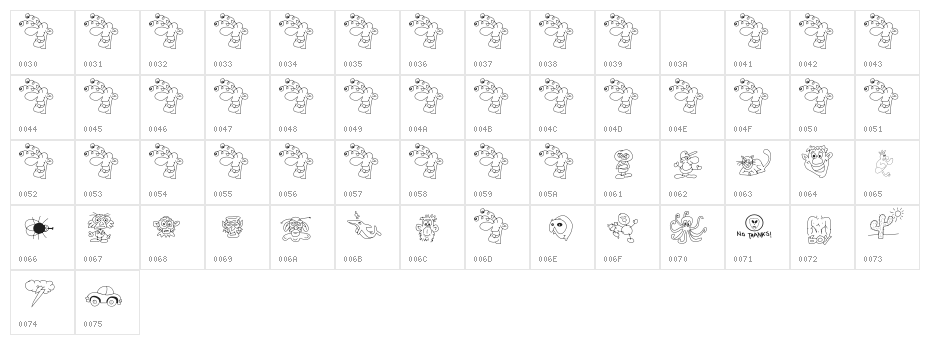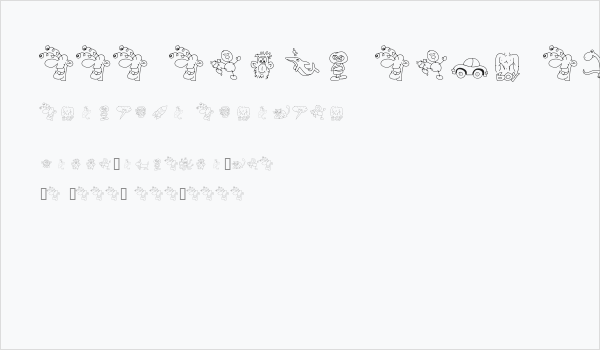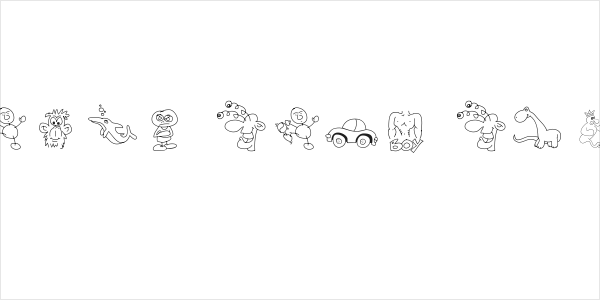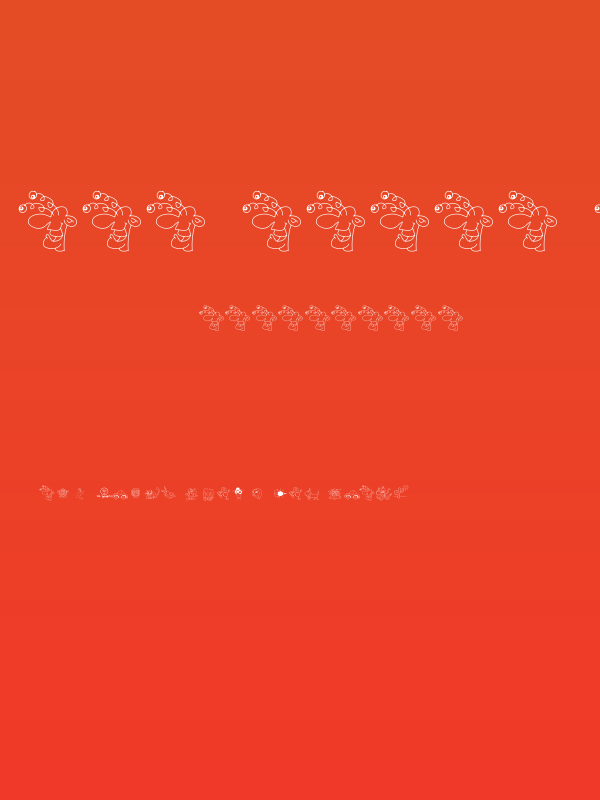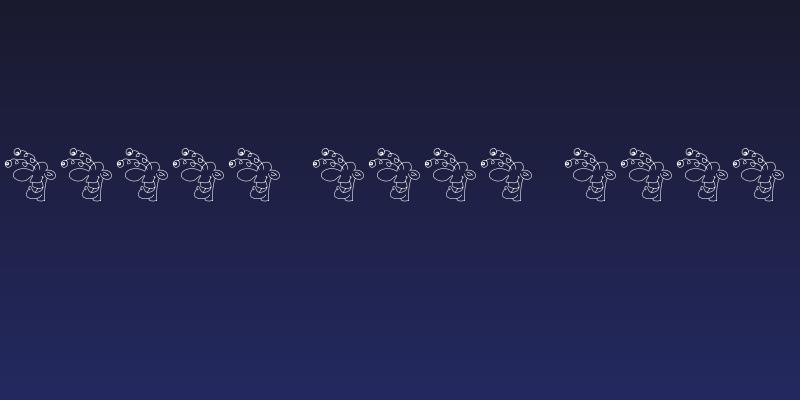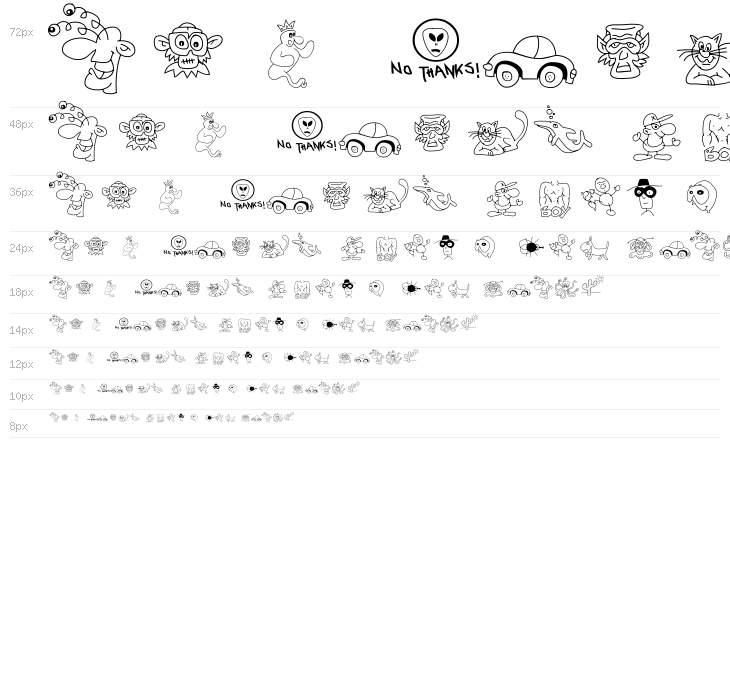
TPF Polka Your Eyes Out Font
| Overall Style | Whimsical, Playful, Cartoonish |
| Use Case | Decorative elements, Illustrative accents, Themed designs |
| Proposed Projects | Children's books, party invitations, playful branding, greeting cards, educational materials, comic strips. |